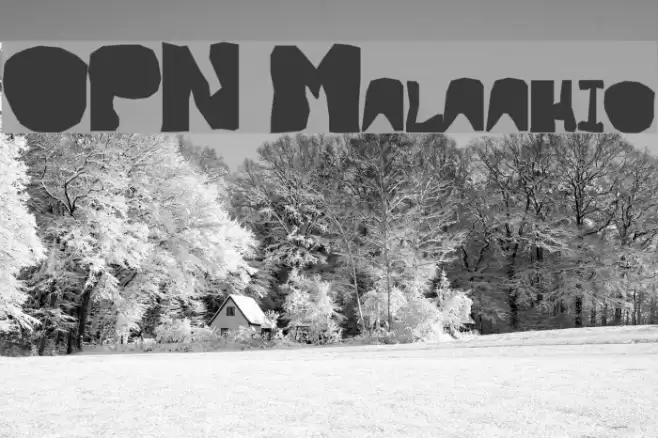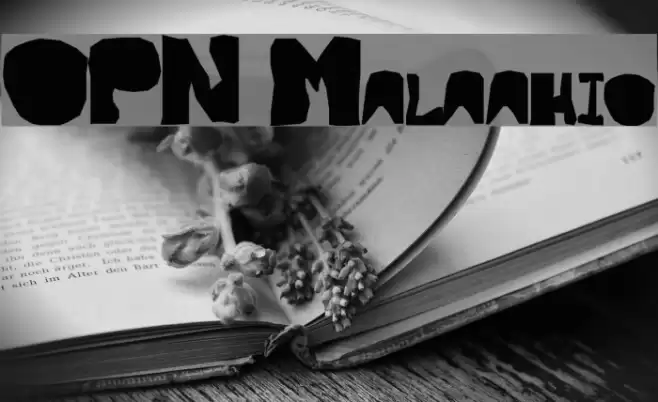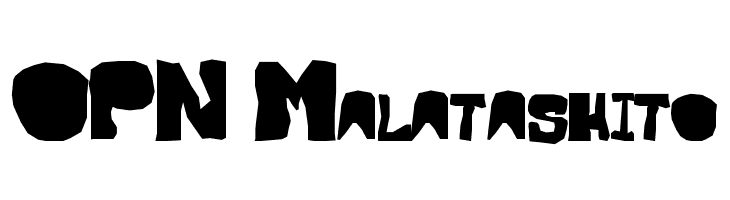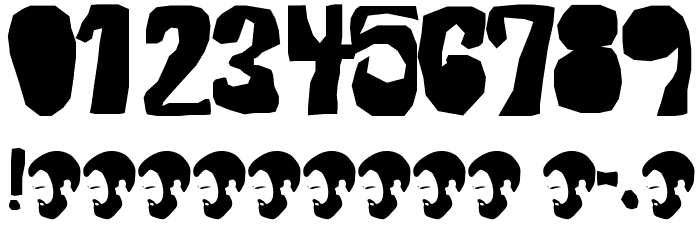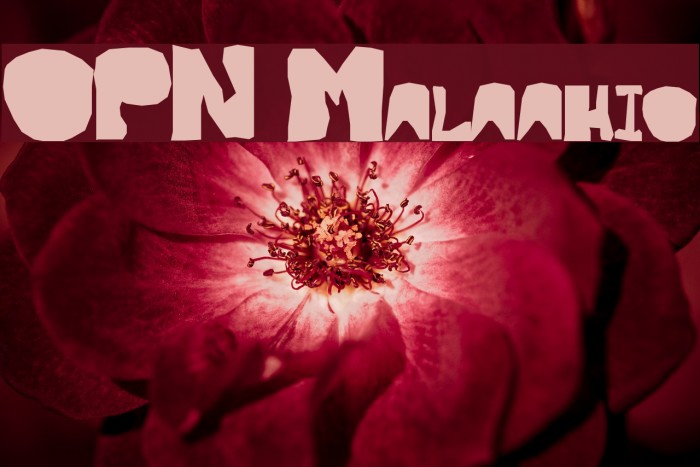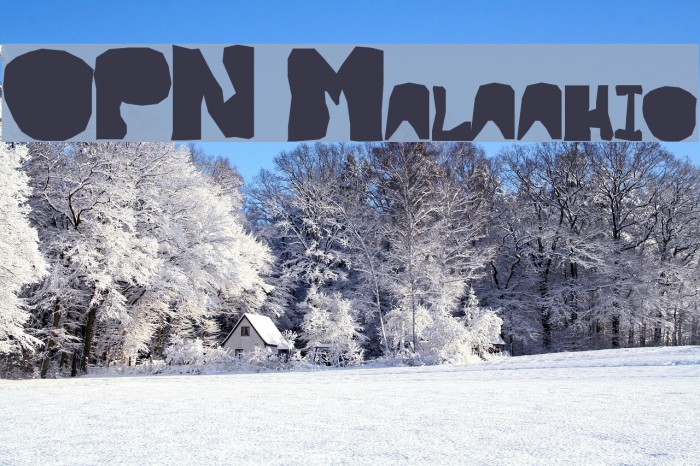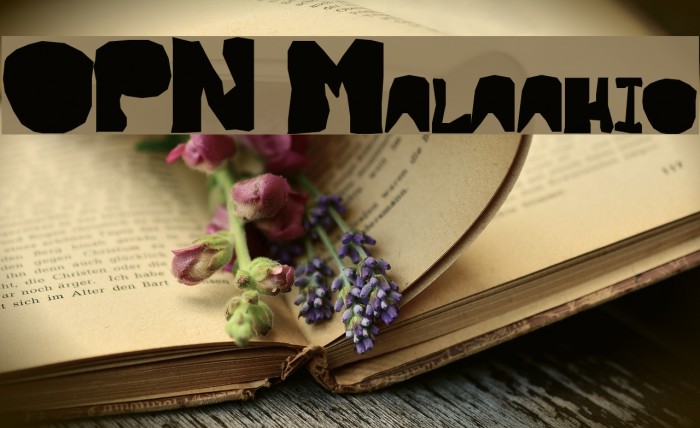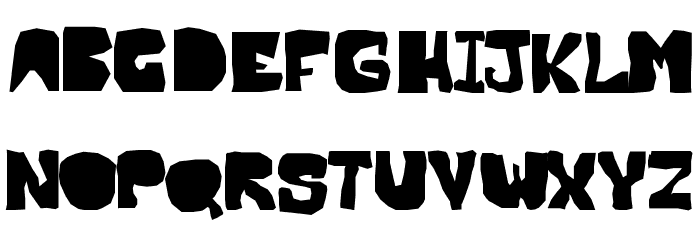
OPN Malatashito Font
OPN Malatashito Description
This font features a bold and artistic design with a unique, irregular shape to each character, giving it a dynamic and edgy appearance. The letters are heavily stylized, with thick strokes and sharp angles, creating a sense of movement and energy. The overall look is both modern and slightly chaotic, making it stand out in any design. The numbers and special characters follow the same bold and unconventional style, ensuring consistency across all text elements. This font is perfect for projects that require a strong visual impact and a touch of creativity.
A bold, artistic font with irregular, dynamic shapes and thick strokes from Distorted Eroded fonts.
- Proposed Projects: Ideal for posters, album covers, branding, and any creative projects that need a bold statement.